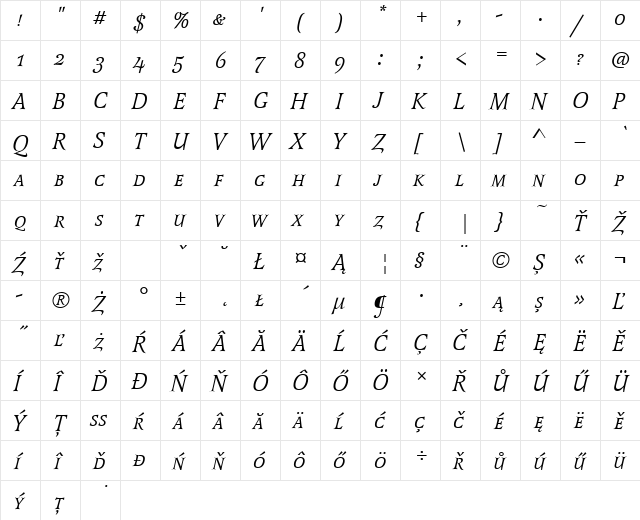
LatienneSCTEEReg Italic Font Preview
LatienneSCTEEReg Italic
LatienneSCTEEReg Italic Font Details
Design Context for LatienneSCTEEReg Typeface
LatienneSCTEEReg takes a measured approach to typography — its balanced proportions and neutral character make it a reliable workhorse for both digital and print work. Its italic angle brings a sense of urgency and motion to the letterforms.
Pro Tip: Try LatienneSCTEEReg for annotation and caption copy alongside an upright companion — the contrast in angle creates a dynamic but ordered typographic system.